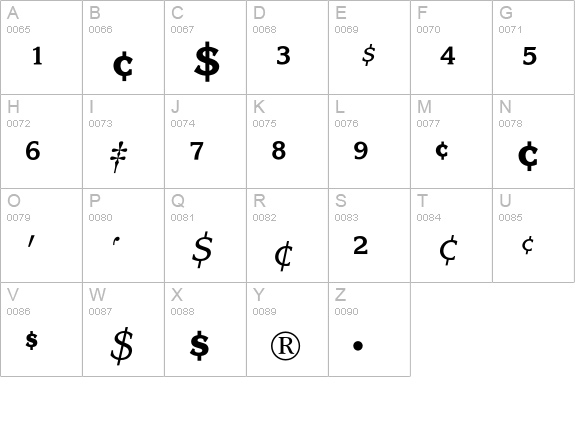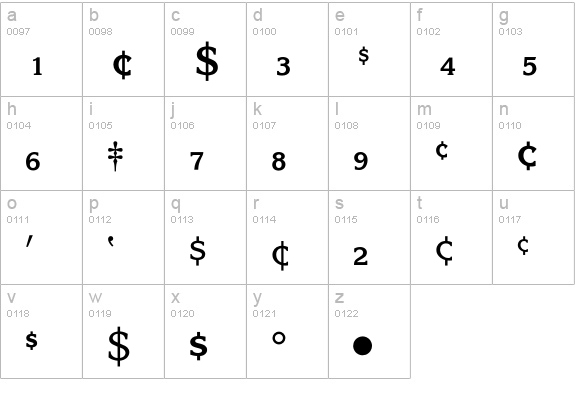
Korinna Fractions Font Details
Korinna Fractions font is a beautifully crafted typeface that exudes elegance and sophistication. Its delicate curves and intricate details make it perfect for adding a touch of refinement to any design project. The font features a unique set of fractions that are meticulously designed to ensure precision and clarity in mathematical expressions and text layout. One of the best things about Korinna Fractions font is that it is completely free for personal and commercial use. You can easily download this exquisite font from FontsMarket.com and start incorporating it into your projects right away. Whether you are working on a print design, web project, or any other creative endeavor, Korinna Fractions font will elevate your work with its timeless charm and versatility. With its classic aesthetic and functional fractions, Korinna Fractions font is a must-have for designers, typographers, and anyone who appreciates the beauty of well-crafted typography. Download it today and unleash the power of this elegant font in your next project.